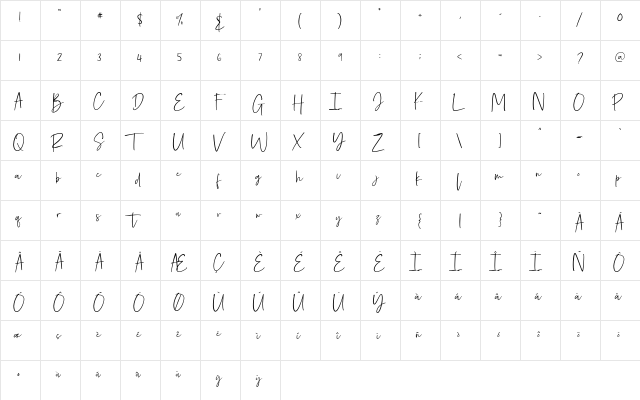
Rashilla | Signature Regular
Design Context for Rashilla | Signature Typeface
Rashilla | Signature is a composed and adaptable typeface that performs quietly and consistently across a wide range of design contexts.